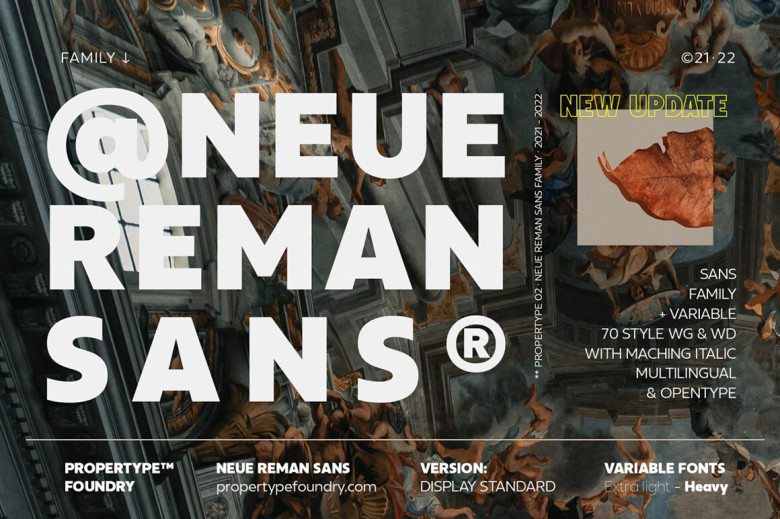
Neue Reman Sans Font
Neue Reman Sans consists of 306 glyphs – this initial edition of the Neue Reman Family features normal ligatures as well as an extensive variety of fractions and figures. We designed Neue Reman typefaces to be utilized across multiple projects such as on systems, websites, printing projects, embedding screens servers digital advertisements branding logos titles headlines teks and all sorts of applications.
Neue Reman Sans Serif Font